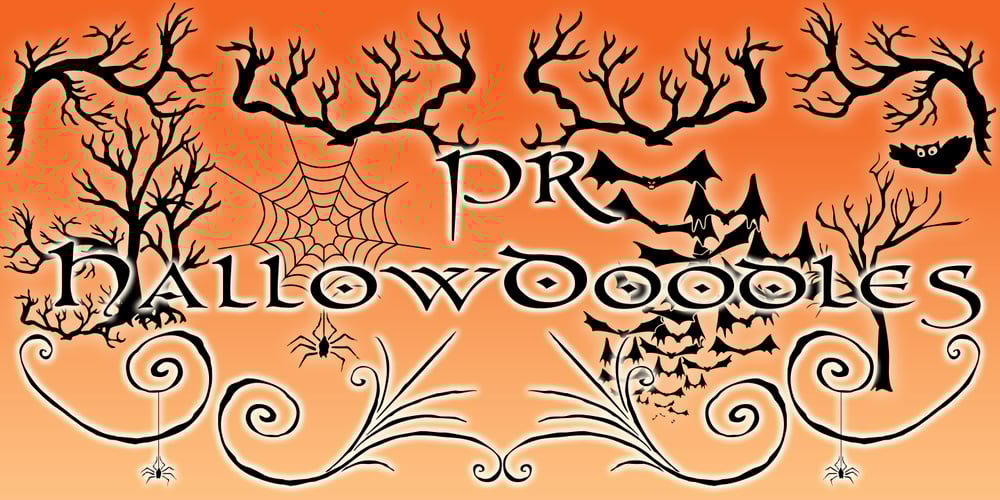
PR Hallow Doodles 01 Font Family was designed by Peter Rempel and published by PR Fonts. PR Hallow Doodles 01 contains 1 styles and family package options. This font is a collection of ornaments and drawings suitable for Halloween themed materials. There are bats, singly and in swarms, owls, dead trees, spiders and webs, as well as calligraphic ornaments with a decidedly creepy bent. Most of the characters in this font were drawn on a napkin with a felt marker, and the resulting ragged texture was very suitable to the Halloween subject matter. Where the same stroke is repeated in one glyph, the contours have been edited to minimize obvious repetition. Use it for your Halloween party invitations and posters. Combines well with: PR Bramble Wood 1, PR Bramble Wood 2, PR Hallow Doodles 02, PR Cauldron, PR Swirlies 01, PR Swirlies 05.